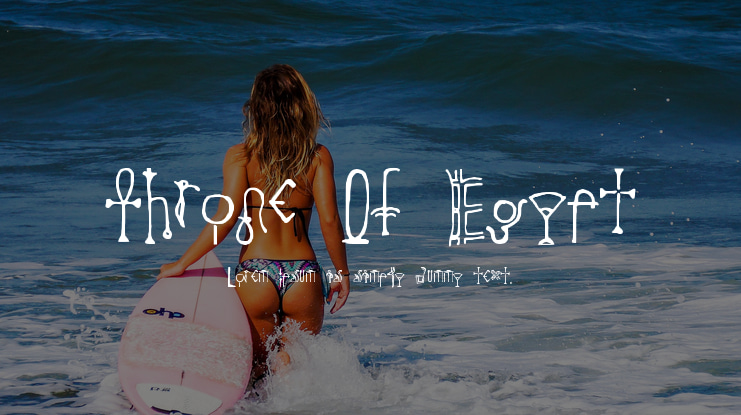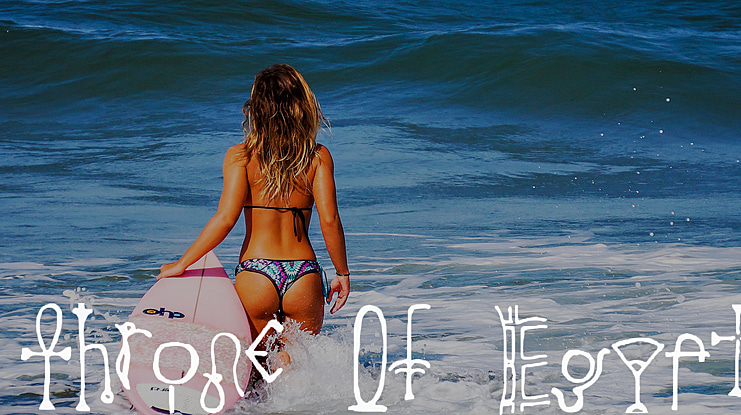
Throne Of Egypt Font
I drew inspiration for this font via ancient Egyptian hieroglyphs and ancient Egyptian artwork. The image background is 'Egyptian Plaque' by Paree at Flickr.com. In one of the images, I gave it a gold like effect and put it in 3D using Text Effects within WordArt inside a Word Document. If you want to use this font Commercially, it is 99c at https://www.creativefabrica.com/designer/shelley-2 Thank you!